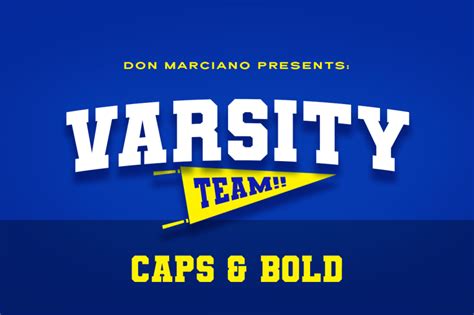
Varsity Team Font. Click to find the best 51 free fonts in the college varsity style. Web varsity team font | dafont.com english français español deutsch italiano português.
These fonts are found on the patches you place on your letterman jackets. Web looking for college varsity fonts? Web varsity team font | dafont.com english français español deutsch italiano português. With a variety of styles and weights, you're sure to find the perfect typeface for. Click to find the best 51 free fonts in the college varsity style. Web discover the perfect look for your next project with our collection of free varsity fonts! Every font is free to download!
Web discover the perfect look for your next project with our collection of free varsity fonts! Web varsity team font | dafont.com english français español deutsch italiano português. Web looking for college varsity fonts? With a variety of styles and weights, you're sure to find the perfect typeface for. Web discover the perfect look for your next project with our collection of free varsity fonts! Every font is free to download! Click to find the best 51 free fonts in the college varsity style. These fonts are found on the patches you place on your letterman jackets.